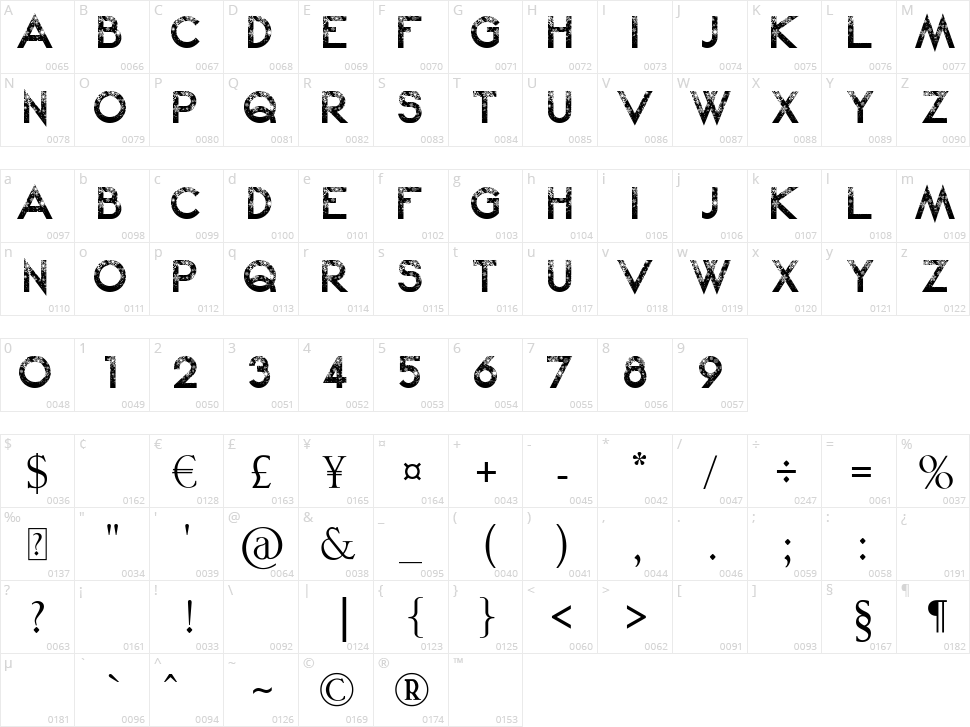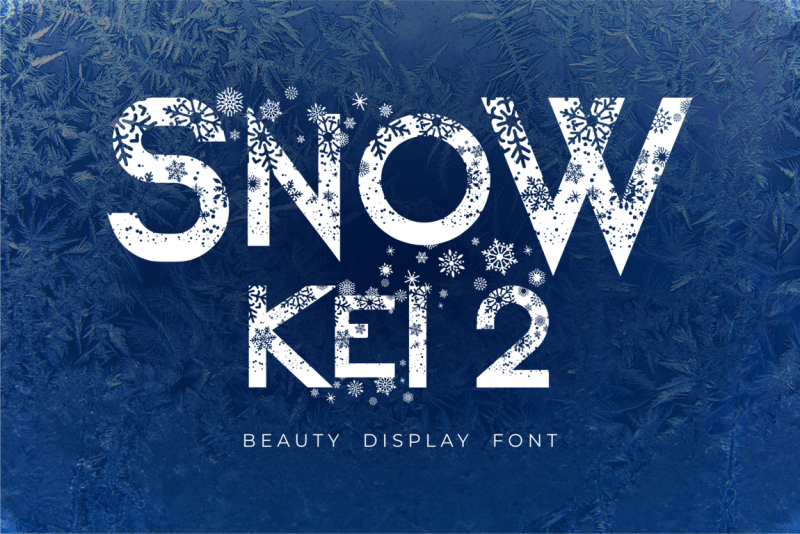
Snow Kei 2
Snow Kei 2 is an upgraded display font from the previous SNOW KEI which has been purchased and downloaded more than tens of thousands of times worldwide. In version 2.0, there is an updated manual optical kerning and additional sparkling snow decorations at the beginning and end of the letters. This snowflake-style font is perfect for your fabulous projects this winter.
I created this Snow Kei 2 font in a unique way and it really makes it easy for you to get swashes & ligatures in the form of snowflake sheen. Hopefully, this way can help and speed up your time.
I used the ligature feature to make swashes of some sparkling snowflakes after the beginning of the letters and before the end of the letters in the word. You can access it easily by using the double asterisk character (**) that is typed after the first letter or the double exponential character (^^) that is typed after the last letter.
For example, in the letter a, type a** after the beginning of the letter or a^^ for the end of the letter to get the swash (* and ^ in the top button parallel to the number on your keyboard).